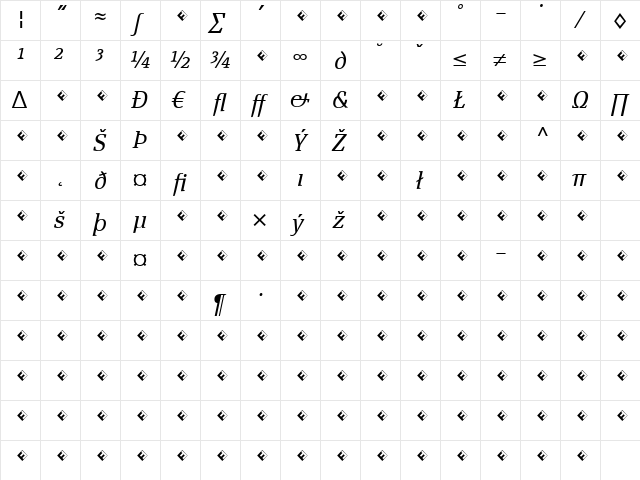
PageSerif-LightItalicExpert Regular Font Preview
| Foundry | Albert Boton, published by FontShop International for the FontFont Library |
| Designer | Albert Boton |
Design Context for PageSerif-LightItalicExpert Typeface
PageSerif-LightItalicExpert carries the refined structure of traditional serif typography, with bracketed terminals and considered proportions that communicate credibility and craft. Its italic angle brings a sense of urgency and motion to the letterforms. The delicate stroke weight brings airiness and refinement to layouts.